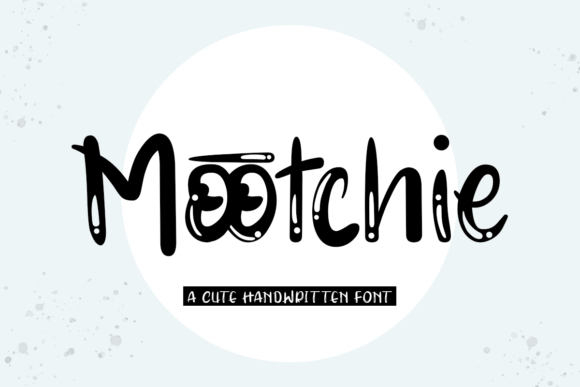
In a world of digital expression, where words dance across screens, lies a font that embodies the very essence of love: Mootchie. Its characters, playfully crafted by the artisans at Fontkong, exude a warmth and charm that will infuse your designs with a touch of delightful whimsy.
Mootchie, a member of the distinguished display font family, isn't just a collection of letters; it's an invitation to let your creativity soar. Its graceful curves and cheerful strokes possess an undeniable magnetism, drawing the eyes of readers into a world of pure joy.
With Mootchie as your typographic companion, your designs will radiate an infectious happiness that's simply irresistible. Its versatility knows no bounds; use it to craft captivating logos that speak volumes about your brand's playful spirit, or let it dance across wedding invitations, adding a touch of romance to the most special day of your life.
But Mootchie's magic doesn't stop there. Its PUA encoding grants you the power to effortlessly access a treasure trove of glyphs and swashes, enabling you to unleash your imagination and create designs that are as unique and unforgettable as the love it represents.
So, embrace the enchantment of Mootchie, the font that captures the essence of love and transforms it into a visual masterpiece. Let your designs spread joy, warmth, and a touch of delightful fun wherever they go. Mootchie is more than just a font; it's an experience that will leave an everlasting impression on your audience.